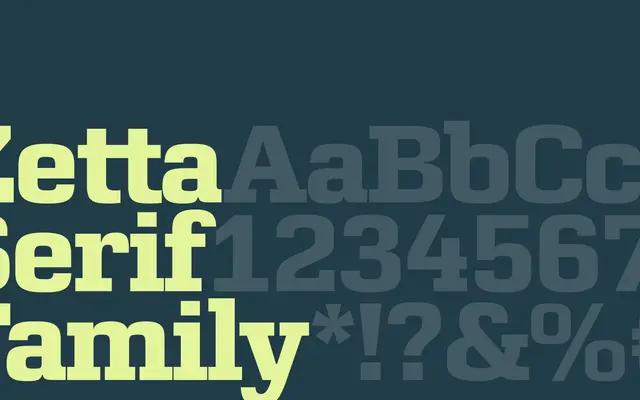
Zetta Serif
A serif typeface from Copenhagen foundry Playtype, presented with minimal technical detail on the product page.
Playtype's Zetta Serif is presented with evocative editorial copy rather than technical specification, making precise classification difficult from available page content alone. The foundry is known for considered, design-forward typefaces aimed at editorial and brand contexts. Further details on weights, widths and language support would be needed to give a fuller picture.
The name and page context suggest a serif typeface; limited page content prevents more precise subclassification, but the editorial framing implies a contemporary text or display serif.